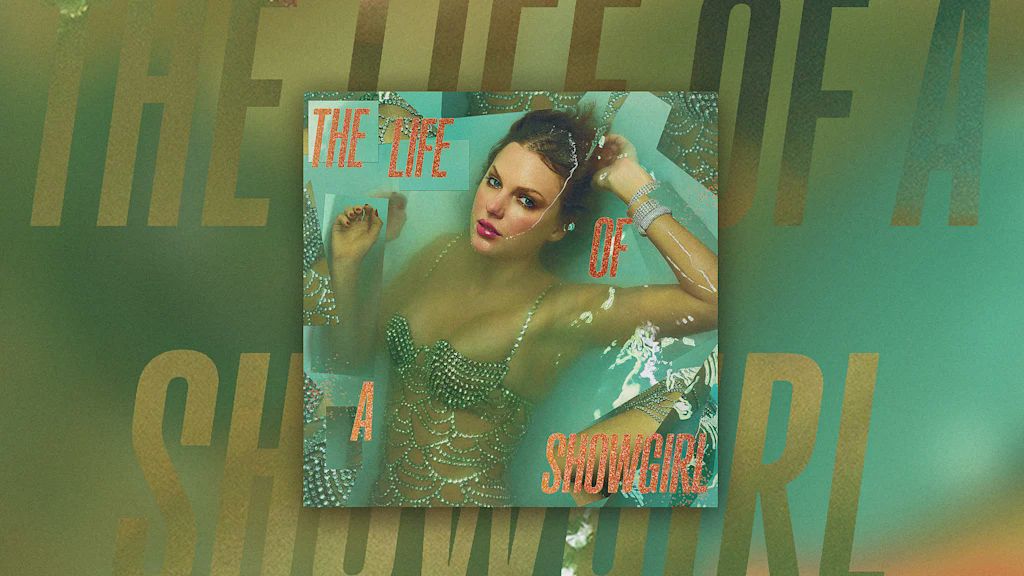
The typeface for Taylor Swift's next album was designed by a heavy metal fan
For 'The Life of a Showgirl,' Taylor Swift turned to Gazzetta, a tall, condensed sans-serif typeface.